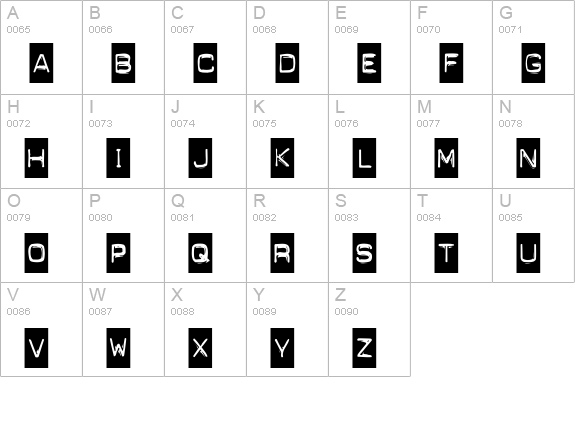
Punch Label Font Details
Punch Label font is a modern and stylish typeface that exudes sophistication and boldness. With its clean lines and sharp edges, this font is perfect for making a statement in your design projects. Whether you're creating posters, logos, or branding materials, Punch Label font will give your work a professional and polished look. Best of all, Punch Label font is completely free to download at FontsMarket.com. This means you can elevate your designs without breaking the bank. Don't miss out on the opportunity to add this versatile font to your collection today!